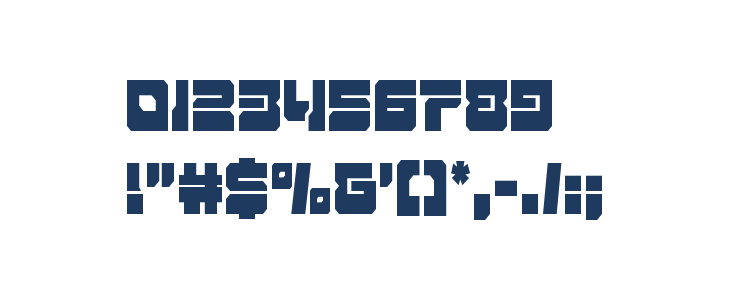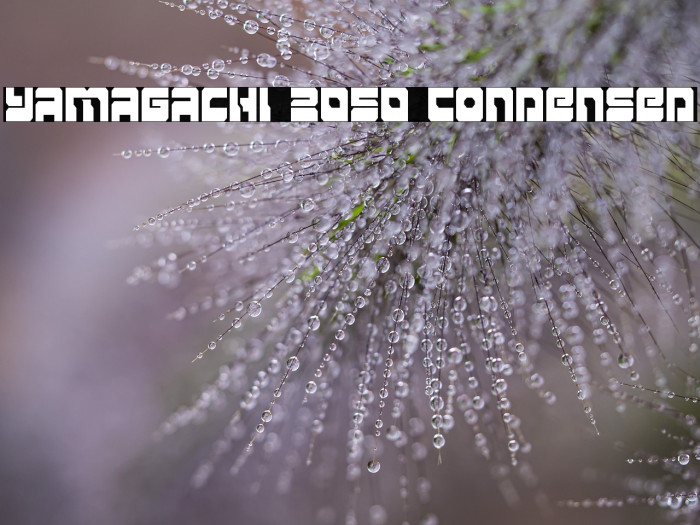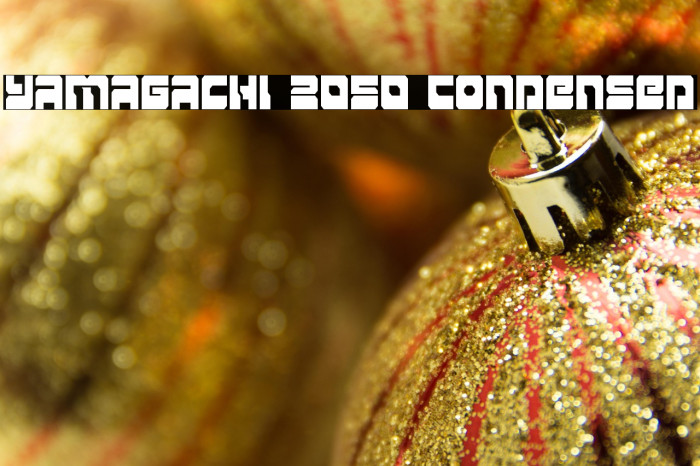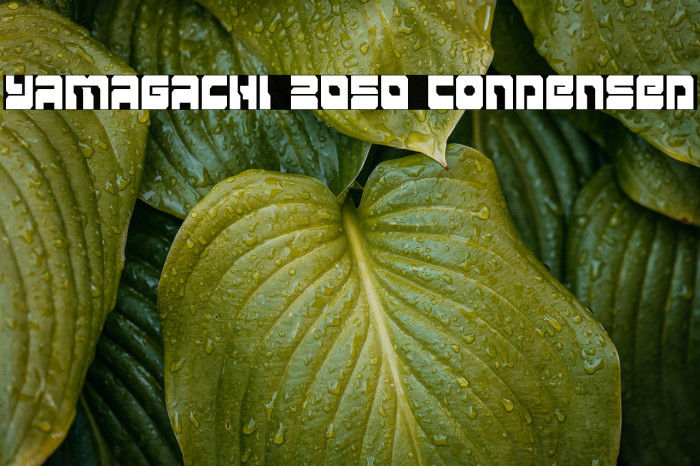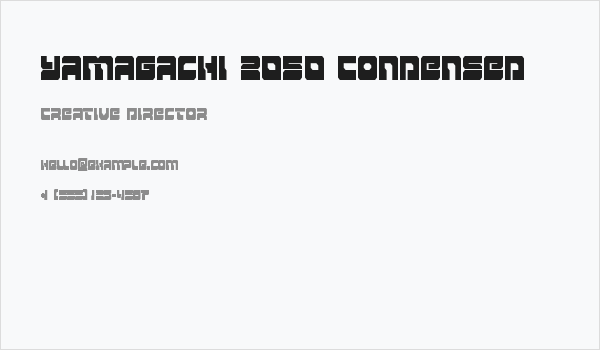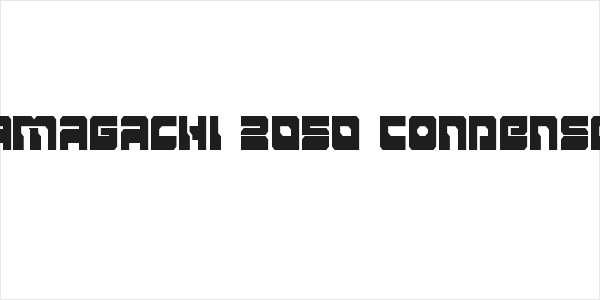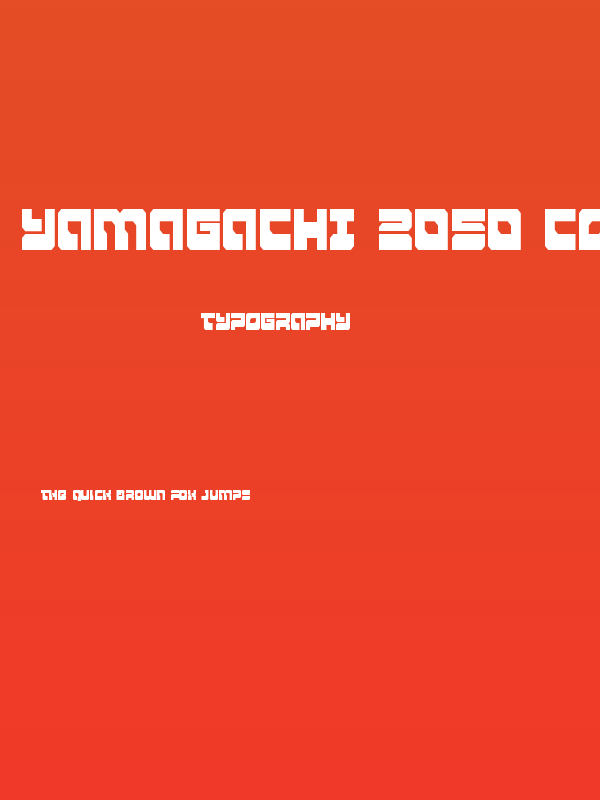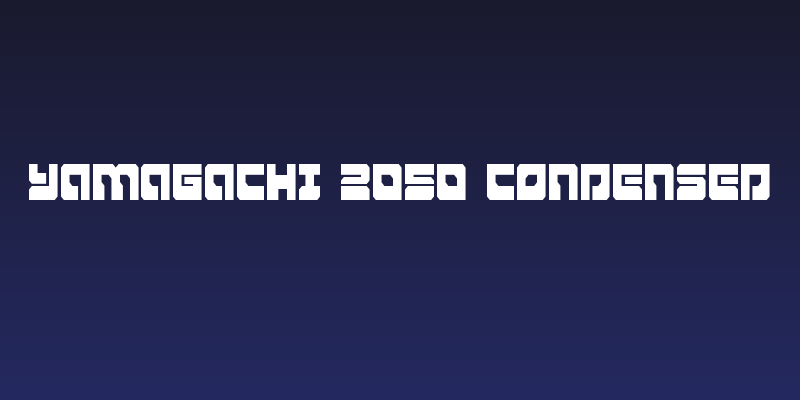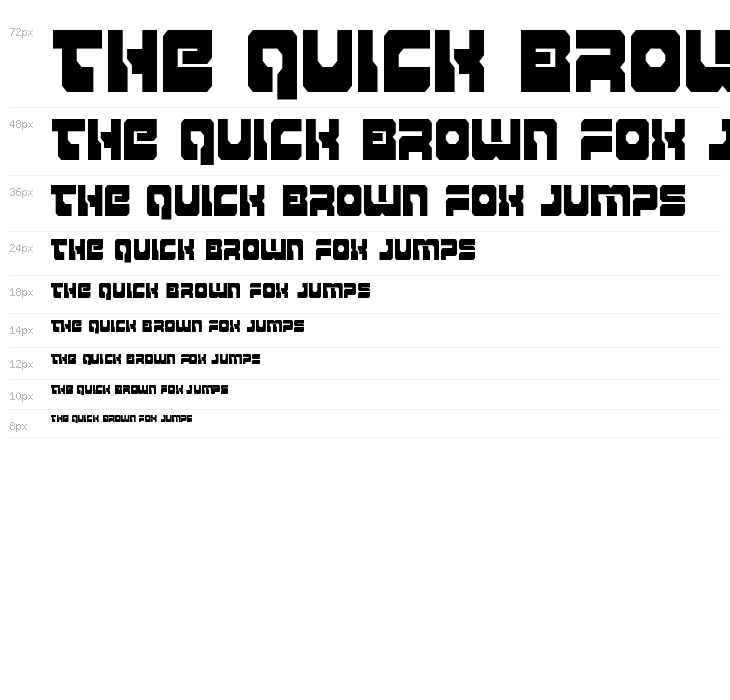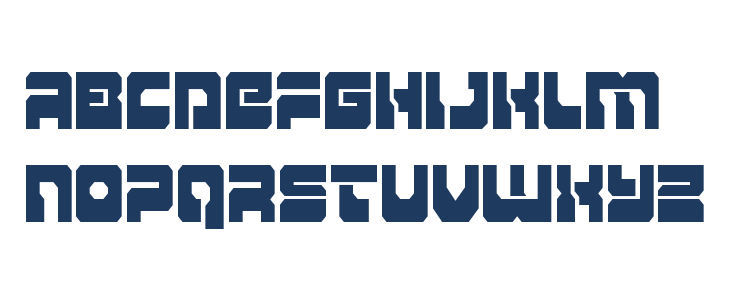
Yamagachi 2050 Condensed Font
Yamagachi 2050 Condensed Description
This font features a bold, futuristic design with a distinctly geometric and angular style. The characters are heavily condensed, giving them a compact appearance that is both striking and modern. The uppercase and lowercase letters maintain a consistent block-like structure, with sharp edges and minimal curves. The numerals and special characters follow the same design principles, ensuring uniformity across the typeface. The overall aesthetic is reminiscent of digital or sci-fi themes, making it suitable for projects that require a contemporary and edgy look.
| Proposed Projects | Ideal for sci-fi themed posters, video game titles, tech branding, and futuristic advertisements. |